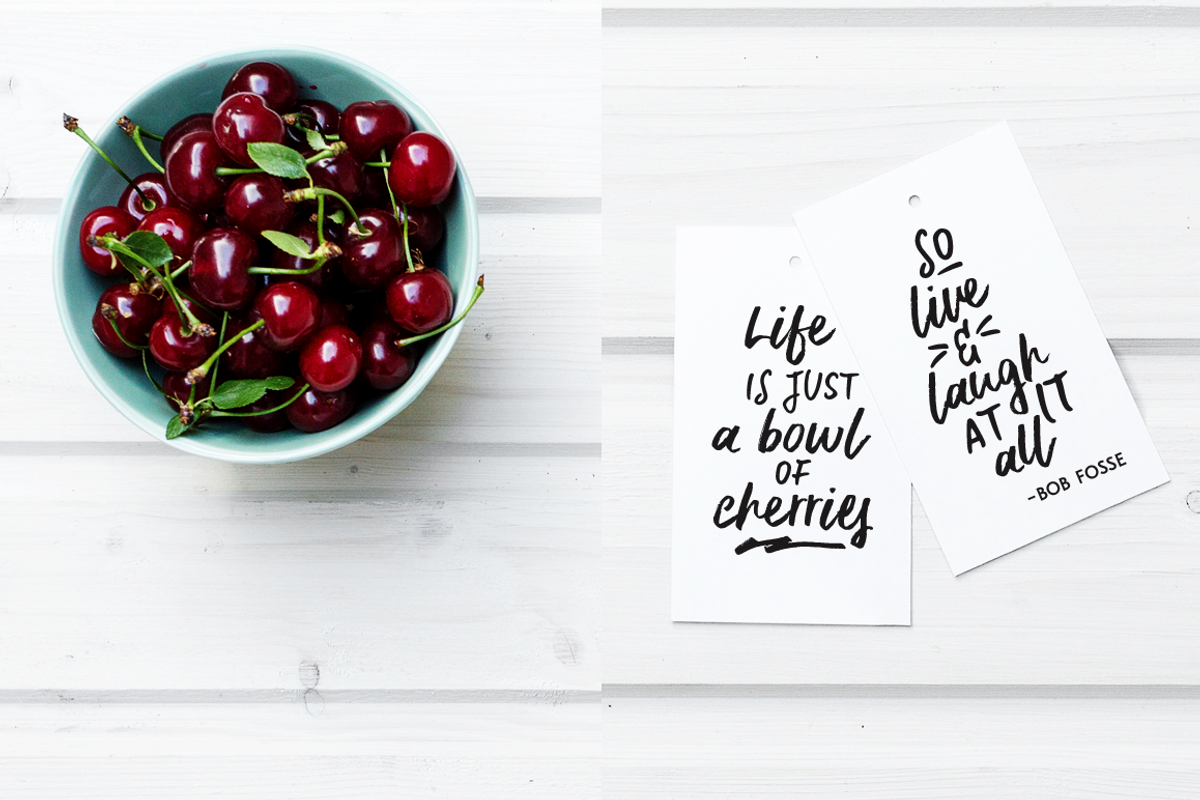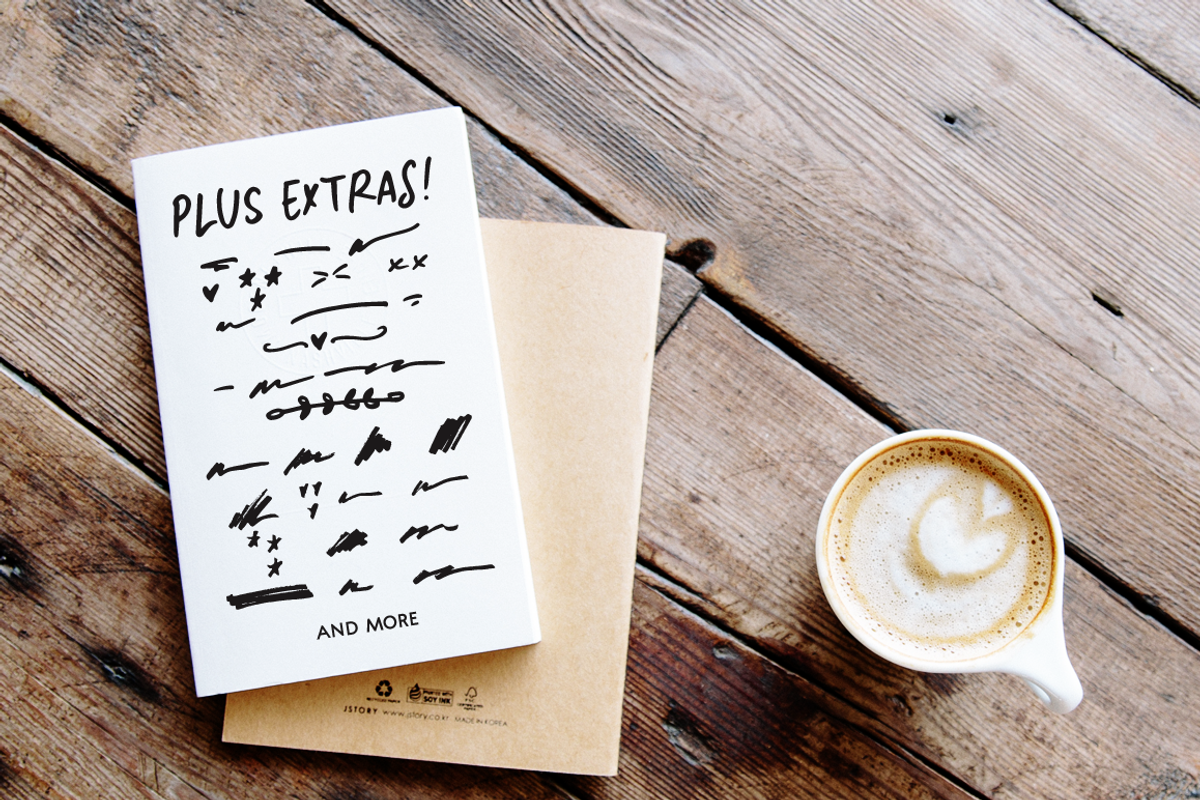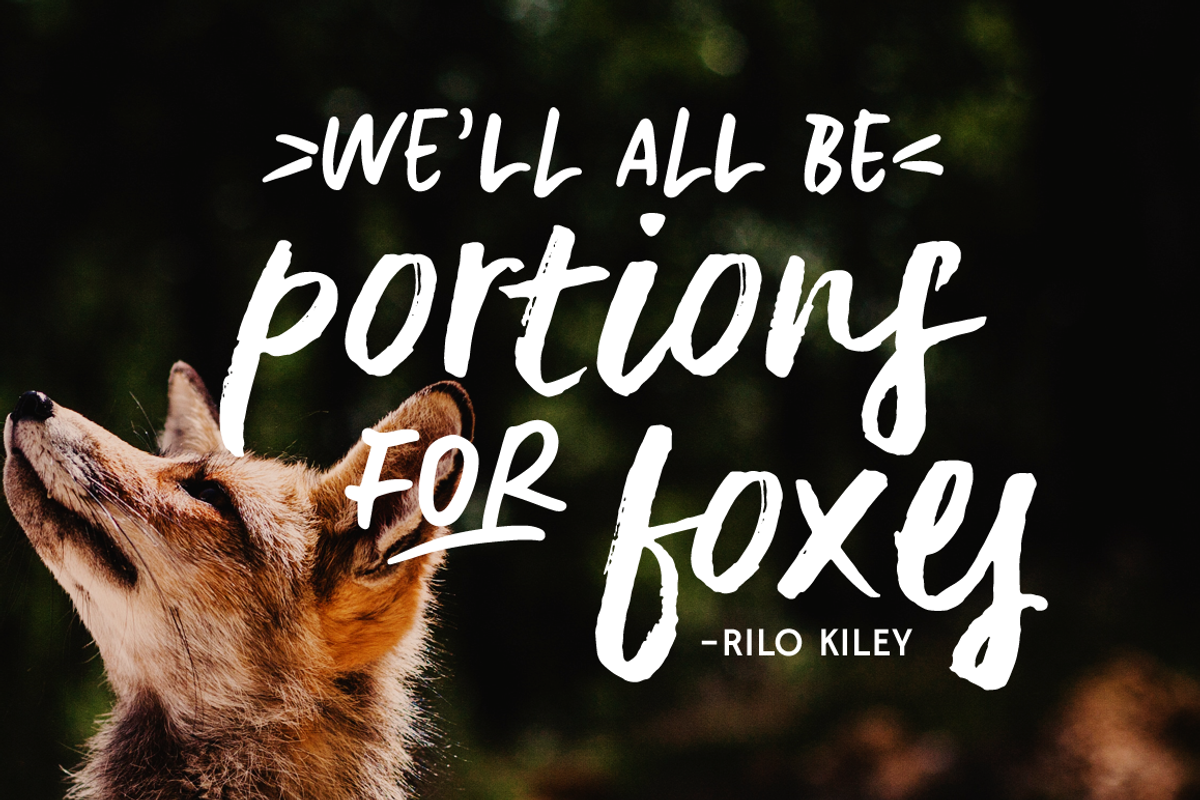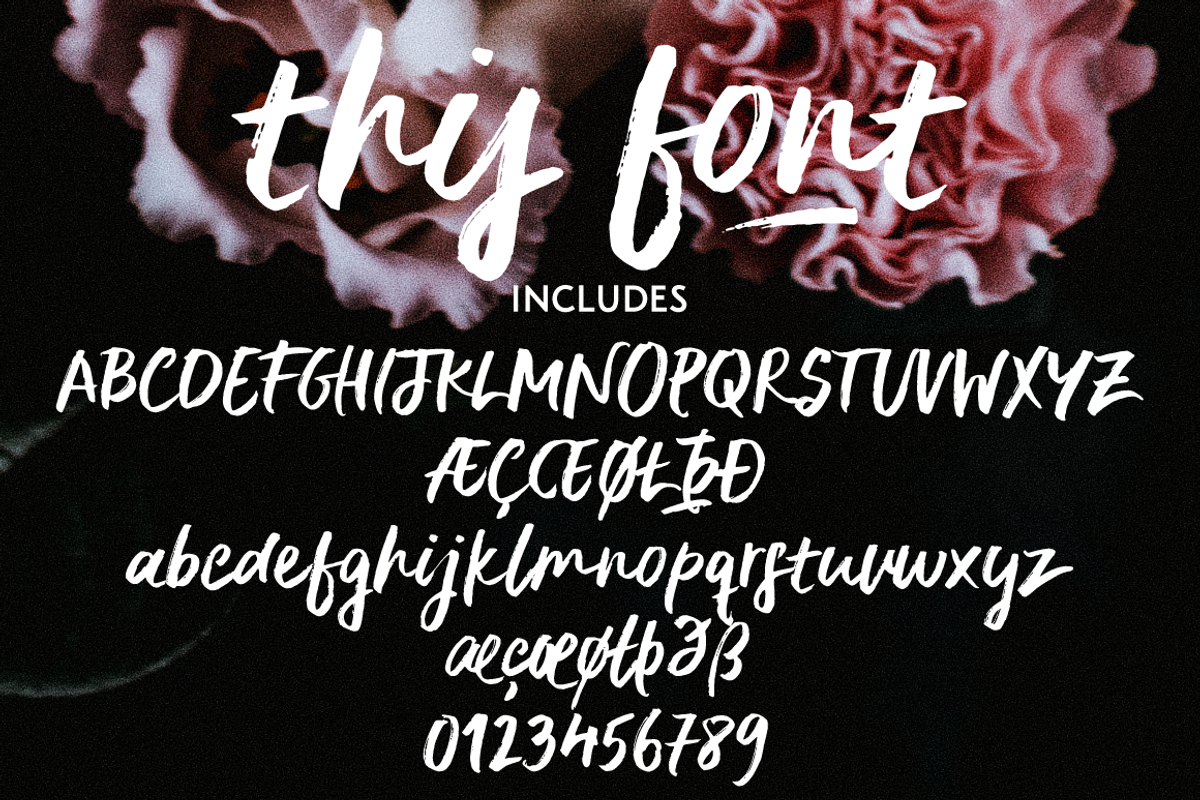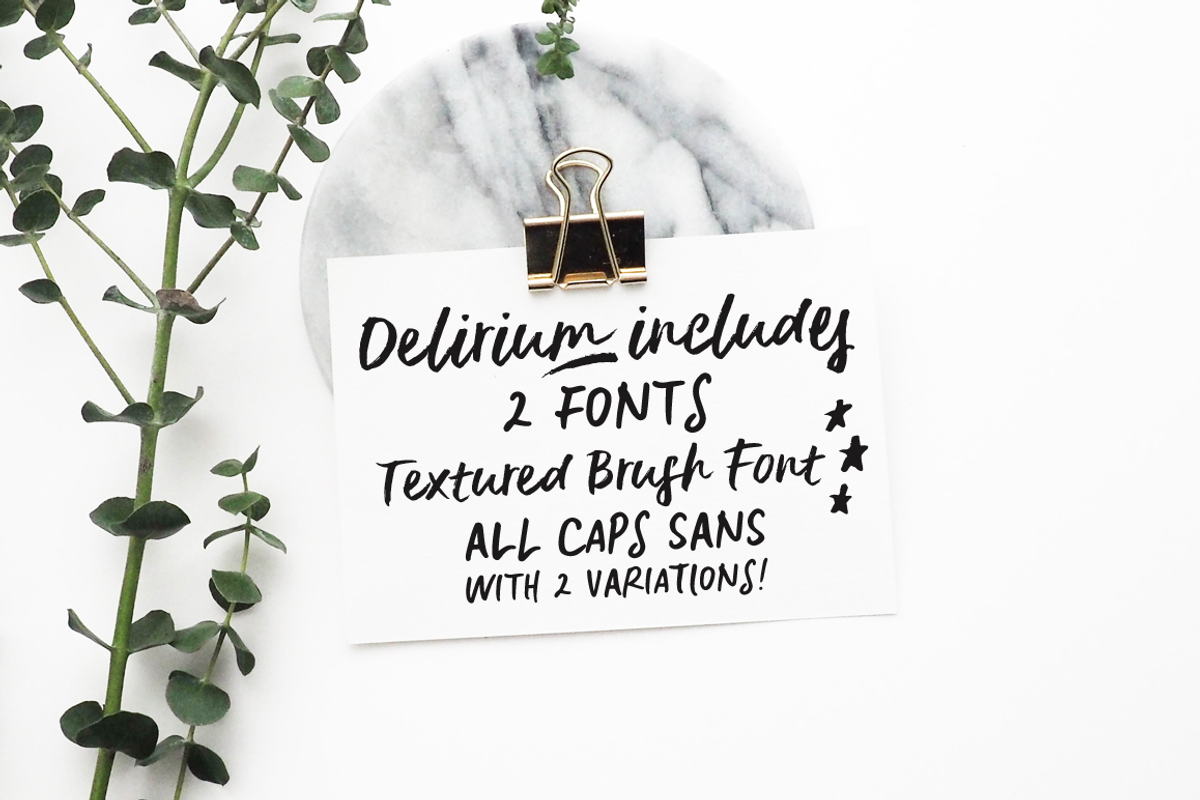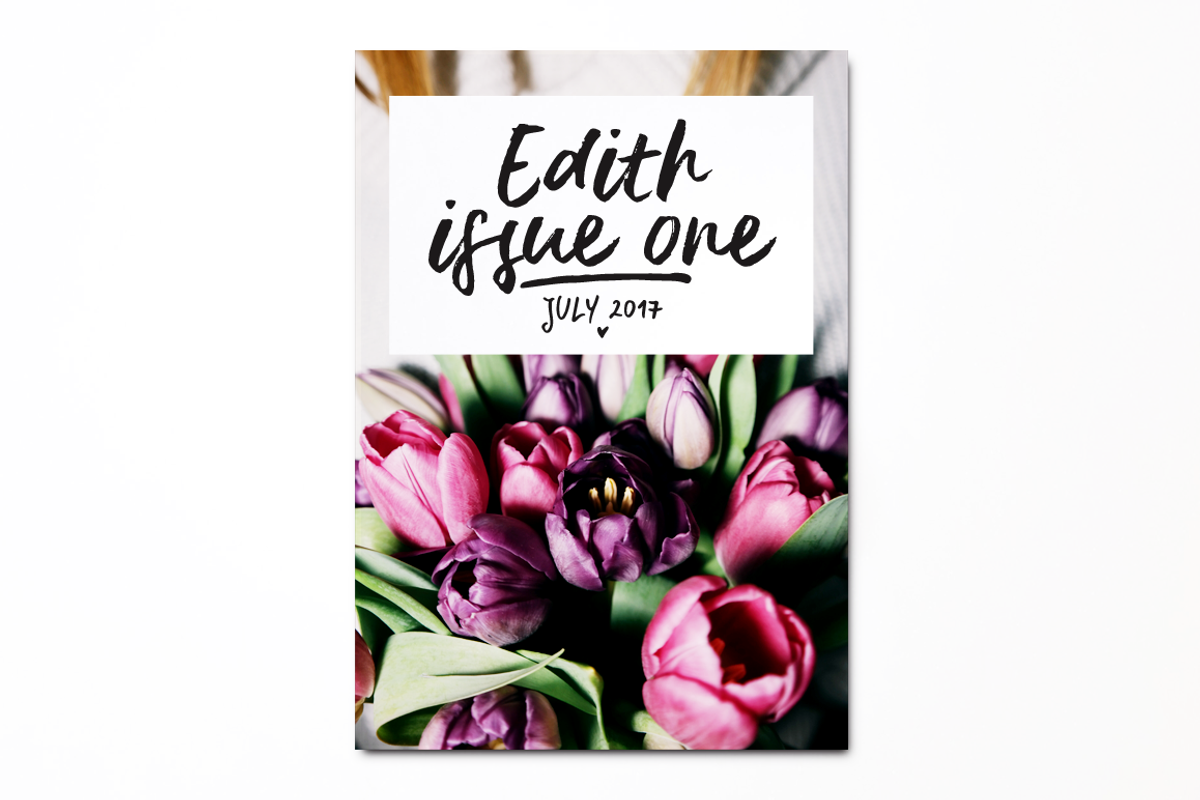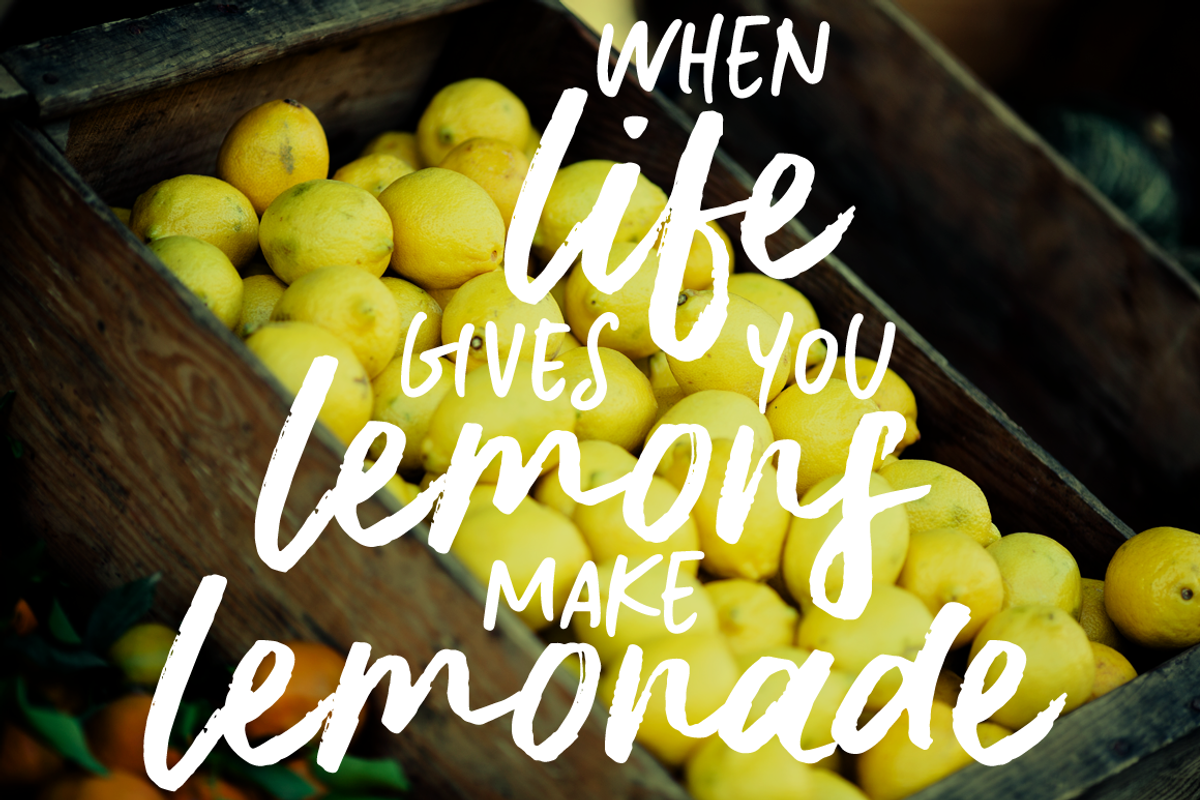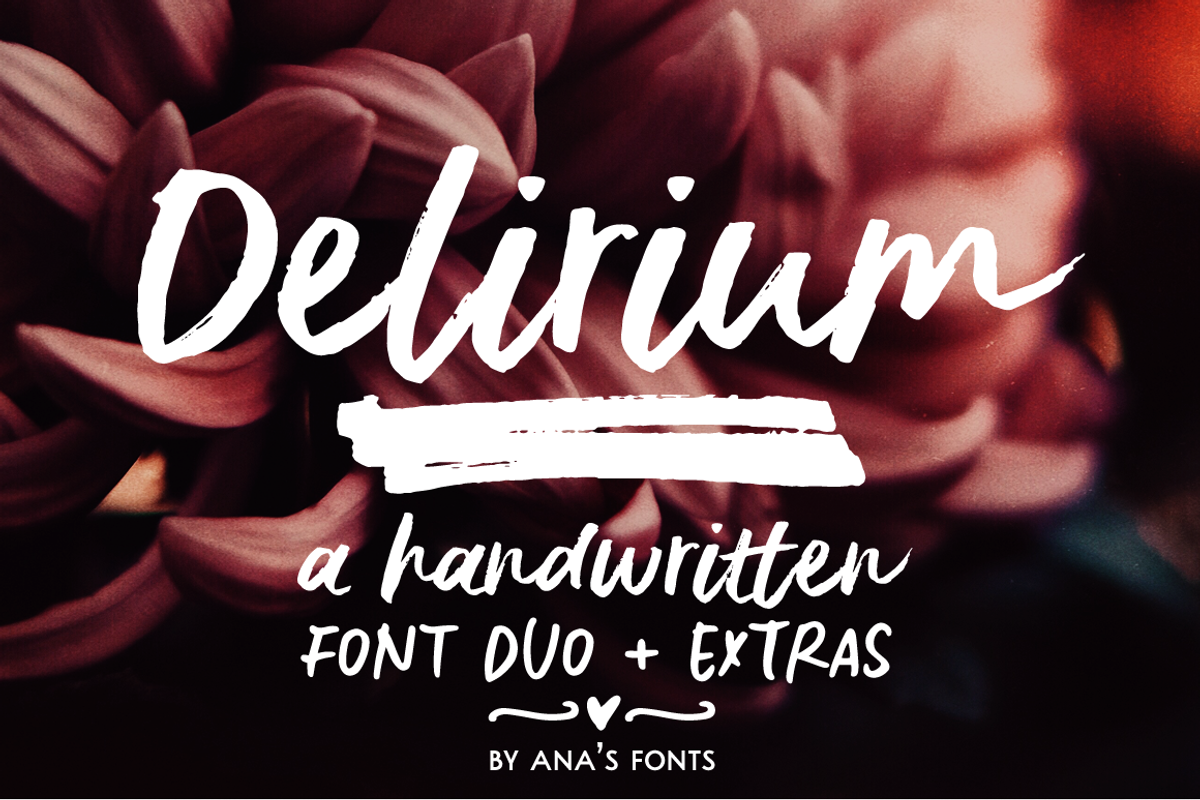
Delirium brush font duo
Delirium is a handwritten font duo that includes two fonts that go together nicely:
- A textured brush font with ligatures;
- A casual all-caps font with different upper case and lower case characters for a more natural handwritten feel.
- Plus two sets of swashes and ornaments that complement each font nicely.
This font duo makes it so easy to create beautiful designs, and is perfect for logos, quotes, cards, social media posts, websites, magazines, packaging etc.